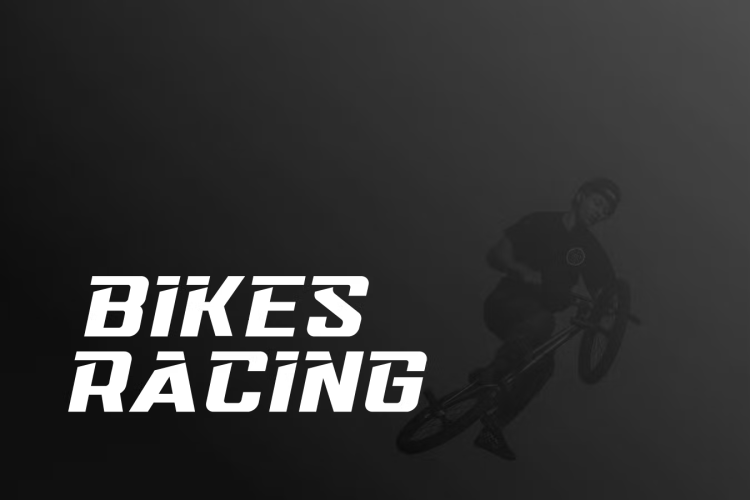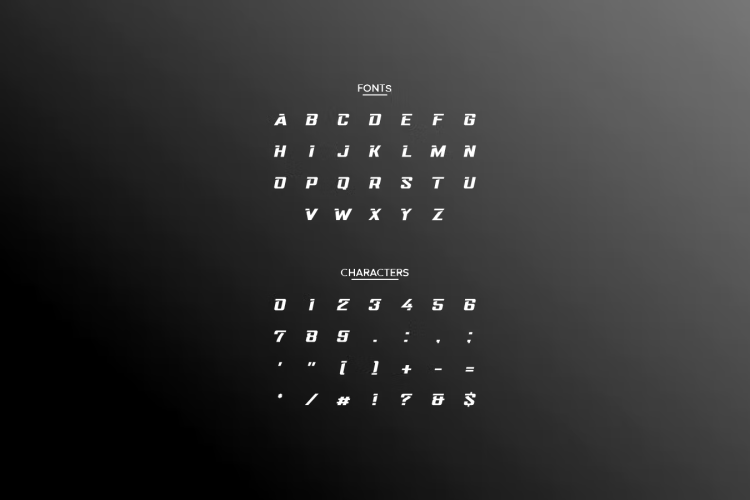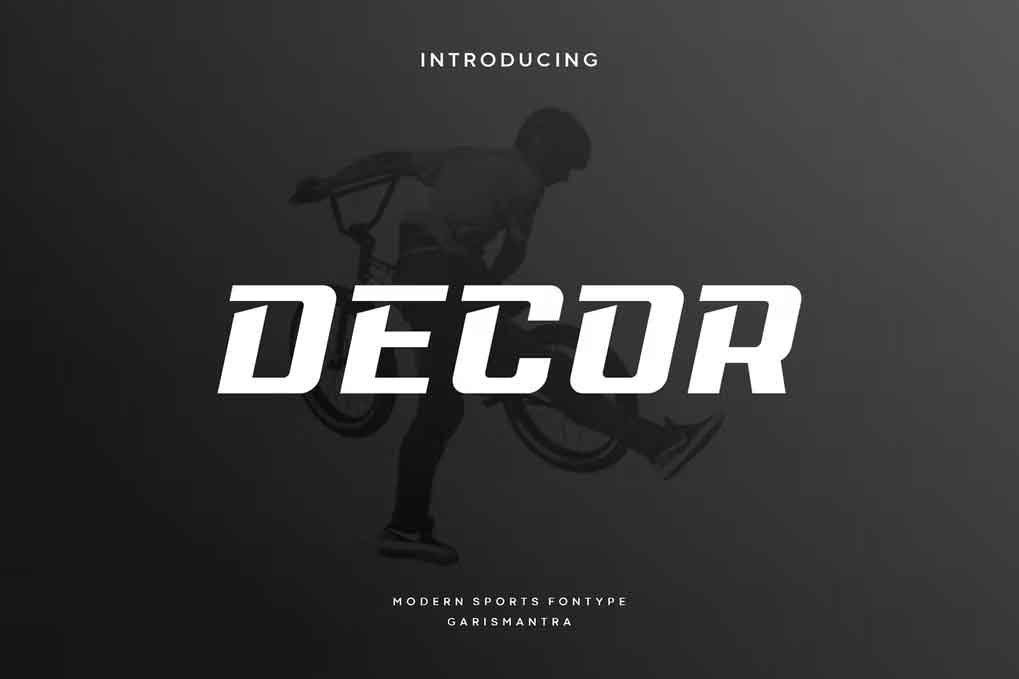
Decor Font
Decor an awesome sports font with wide italic fonts, modern cutouts, and dynamic slant. Ideal for fast car racing sports titles, bmx, cycling, automotive game logos and…
Decor an awesome sports font with wide italic fonts, modern cutouts, and dynamic slant. Ideal for fast car racing sports titles, bmx, cycling, automotive game logos and monograms or other modern dynamic text. Decor compare favorably with legibility and size, creating the effect of power and speed. Designed as a fast and dynamic font, but with a slightly different font design, check it out and grab it right away.
Where Decor Font works best
Seasonal campaigns
Decor Font gives a holiday or themed promotion its own look without redrawing anything; use it for the headline only.
Party and family invitations
Decorative letters set the mood before the text is read. Pair Decor Font with a plain sans for the practical details.
Game and video titles
Themed lettering sells the world of a game or a channel in one frame.
What kind of work does Decor Font suit?
It sits in the Decorative Fonts group and reads as branding, decorative, decorative fonts, modern. That makes it a candidate wherever those qualities help: headings, packaging, social graphics and brand work. Set it at the size you plan to use before deciding.